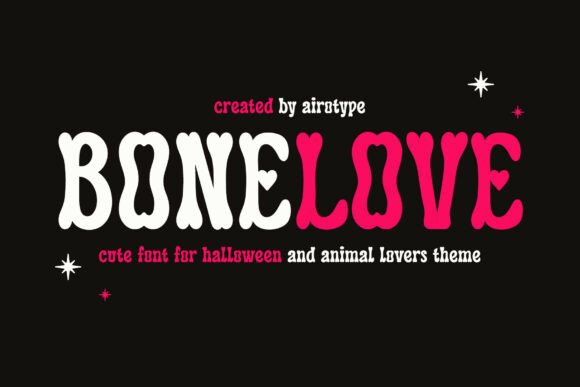
The Bone Love Font: A Spooky-Chic Addition to Your Design Arsenal
I’ll never forget the time I was working on a Halloween-themed project for a client, and I just couldn’t find the right font to capture the spooky yet playful vibe they were looking for. I scoured the internet, tried out countless fonts, but nothing seemed quite right. That was until I stumbled upon the Bone Love font. It was love at first sight! 💕
With its retro and groovy display style, accented with subtle bone details, Bone Love perfectly blended cute, lovely, and festive energy with a touch of spooky charm. It was exactly what I needed to bring my client’s vision to life. And today, I’m excited to share this fantastic font with you, exploring its features, uses, and some practical tips on how to make the most of it in your designs.
An Honest Review of Bone Love Font
What I Love About Bone Love ✨
- Unique and eye-catching design that’s perfect for Halloween-themed projects 🎃
- Subtle bone details add a touch of spookiness without being too overwhelming 💀
- Works well for a variety of design projects, from apparel and stickers to crafting and sublimation 📚
- Easy to read and understand, even in smaller sizes 🔍
- Great for pet-related projects, such as cat and dog graphics or playful branding 🐾
- May not be the best choice for very formal or professional designs, as it has a playful tone ⚠️
- Some users might find the bone details too subtle or not prominent enough 🤔
The Story Behind Bone Love
Bone Love was designed with the intention of capturing the playful, spooky spirit of Halloween. The designer wanted to create a font that would be perfect for crafting, sublimation, and other creative projects. With its unique blend of cute and spooky elements, Bone Love has become a favorite among designers and crafters alike.
Q: What type of projects is Bone Love best suited for?
A: Bone Love is perfect for Halloween-themed projects, pet-related designs, crafting, sublimation, and more.
Q: Is Bone Love a difficult font to read?
A: No, Bone Love is designed to be easy to read and understand, even in smaller sizes.